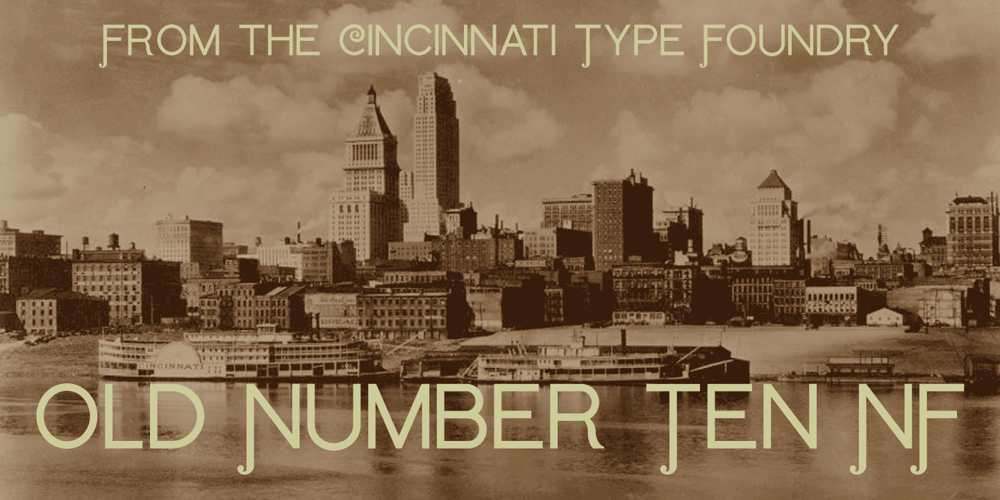
Old Number Ten NF Font Family was designed by Nick Curtis and published by Nick’s Fonts. Old Number Ten NF contains 1 styles and family package options. Here is a faithful revival of Gothic Number Ten, released by the Cincinnati Type Foundry in the late 1800s. Not your garden-variety sans-serif, its quirky caps will warm up your headlines. Both flavors of this font feature the 1252 Latin, 1250 Central European, 1254 Turkish and 1257 Baltic character sets.